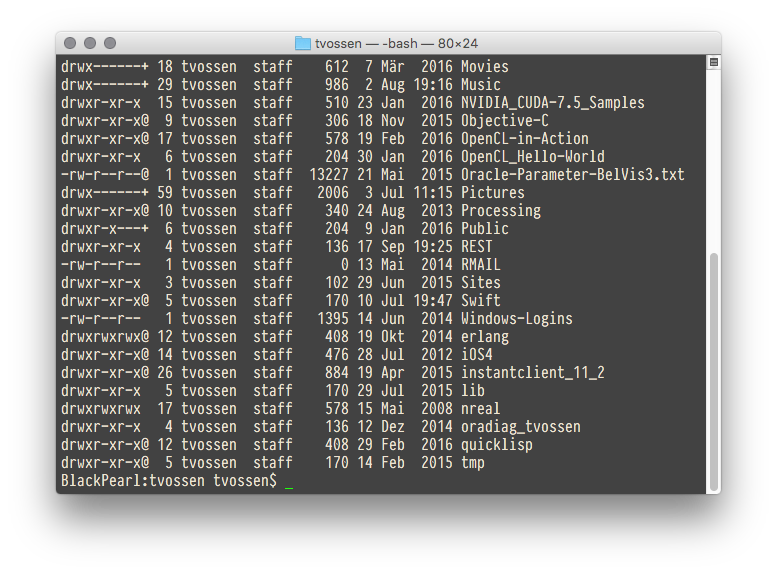
I just updated to Sierra, I noticed the terminal font is kinda different. Anyone else noticed that?
I can't find the original font that was there before, does anyone know what it is?
Is it SF Mono by any chance? 🙂
The original font is Menlo Regular, 11 pt. At least for the ‘Basic’ theme.
The ‘Homebrew’ theme uses Menlo at 12 pt.
From which system have you updated?
I’ve attached mine, from El Capitan.
I am not sure where the designs are located. I could not find them in the application bundle, so I am guessing it is hard-coded somewhere.
The font rendering changed definitely. I use PragmataPro as my favorite Terminal font. With Mac OS X 10.11 the font rendering change to a slightly thinner rendering. With macOS 10.12 the rendering seems to have changed back to the way it used to be before - which I actually prefer.
Besides this, the font rendering in Preview.app did improve, too. At least on a non retina display.
The font rendering changed definitely. I use PragmataPro as my favorite Terminal font. With Mac OS X 10.11 the font rendering change to a slightly thinner rendering. With macOS 10.12 the rendering seems to have changed back to the way it used to be before - which I actually prefer.
Besides this, the font rendering in Preview.app did improve, too. At least on a non retina display.
That actually sounds great. The font rendering has definitely worsened since Mavericks. I might actually consider upgrading to Sierra prematurely because of this.